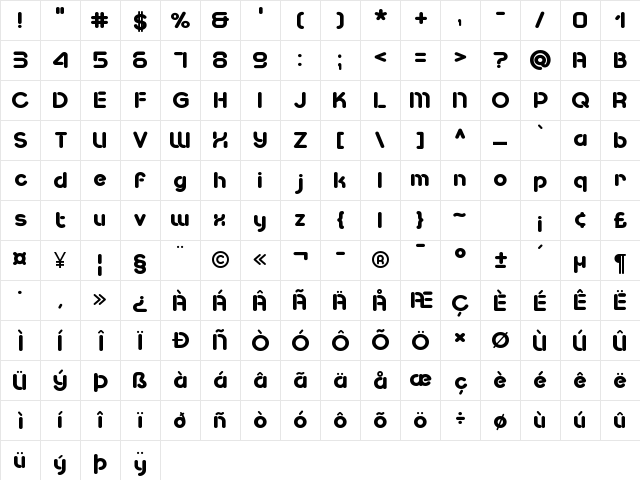
Pesta Stencil Demo Bold Free Font
Pesta Stencil Demo Bold
Foundry: StudioTypo
Design Context for Pesta Stencil Demo
Pesta Stencil Demo borrows the utilitarian aesthetic of stencil lettering, with its characteristic cutaways and no-frills construction lending an industrial edge. Its bold stroke weight gives it real presence on the page.
Pro Tip: Use Pesta Stencil Demo at large sizes on packaging, posters, or apparel where the stencil cutaways read clearly. Avoid small sizes where those gaps become visual noise.